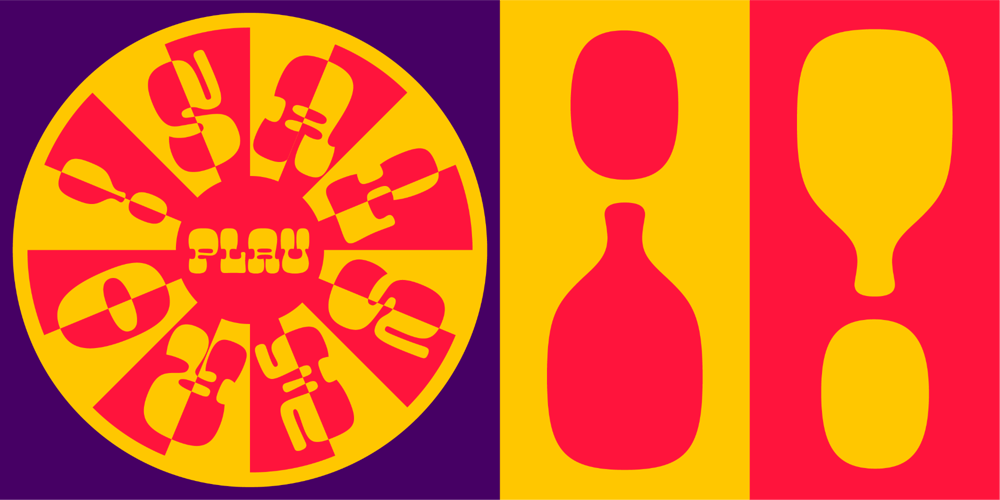
Salsero Font Family was designed by Rodrigo Saiani and published by Plau. Salsero contains 1 styles and family package options. Cabrón, listen. Nosotros made a new fuente (only one file, cabrón, not super family – it can be variable, you just have to stretch it). Compra te, just buy it, or get it via Adobe Fonts. Go for it, amigo.Salsero hablas spanish en primero lugar, pero many other languages. German, english, french and most gringo languages tu cabeza can think of. Salsero has contraste invertido and all kinds of crazy curves, curvas locas, amigo. If you compreende this text, then you surely have compatibilidade, compatibility with Salsero, cabrón. No doubt you will like this fuente full of happy and not so happy mistakes, erritos.